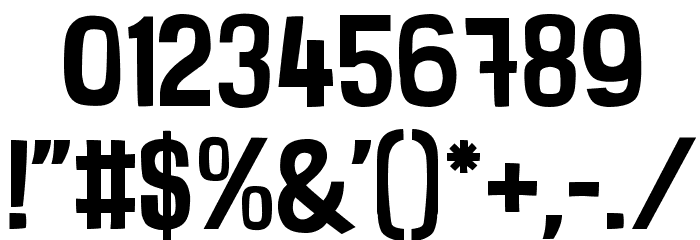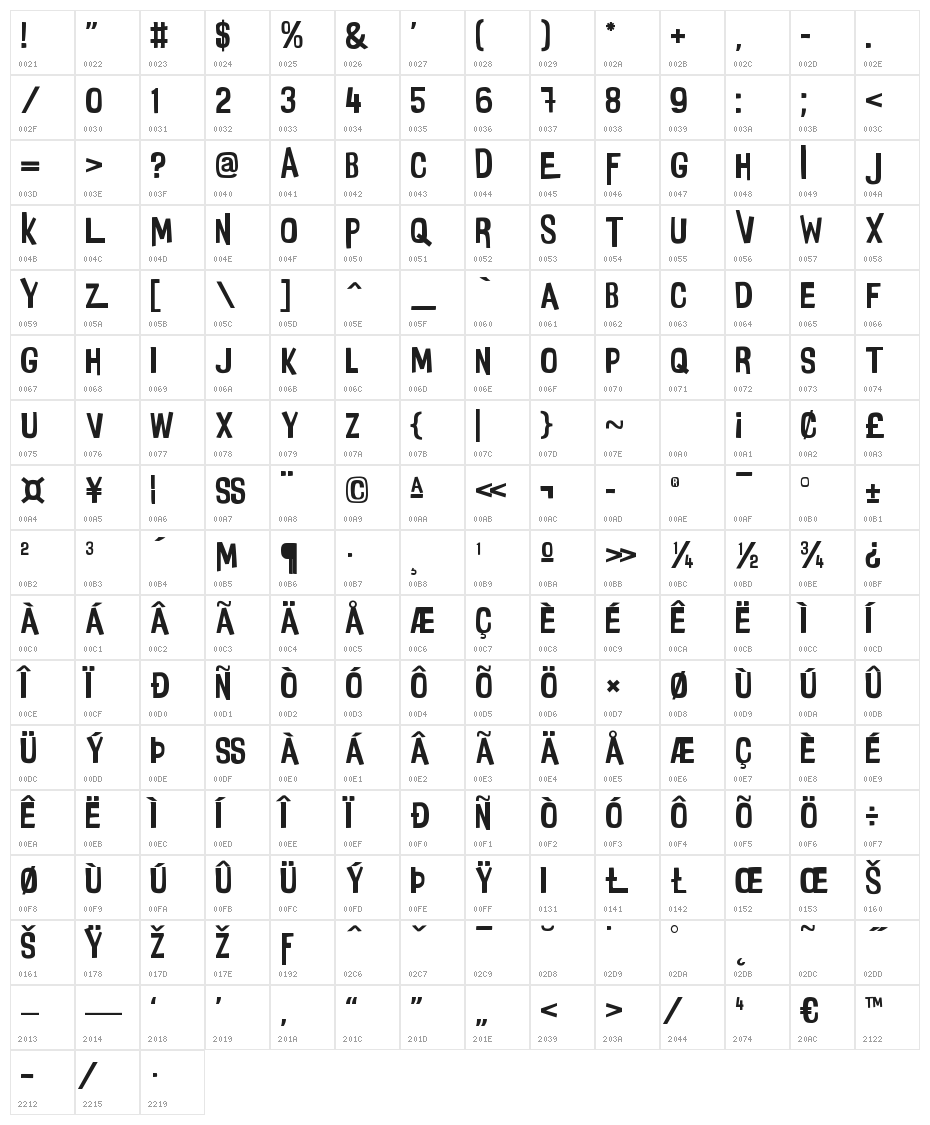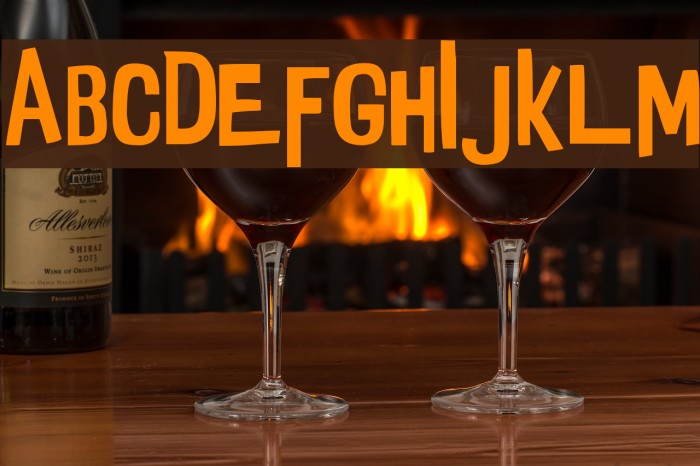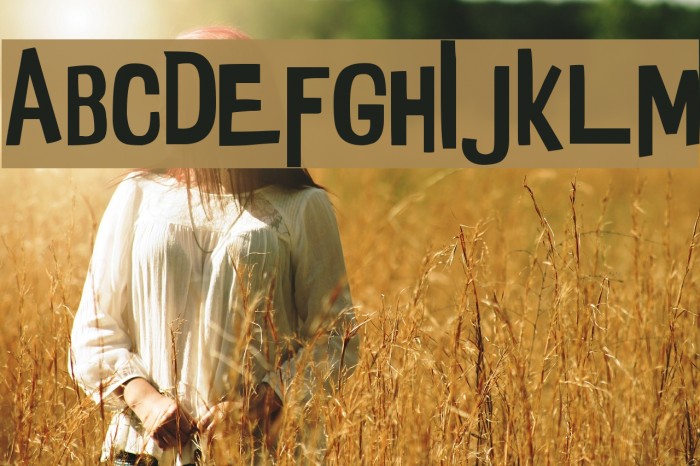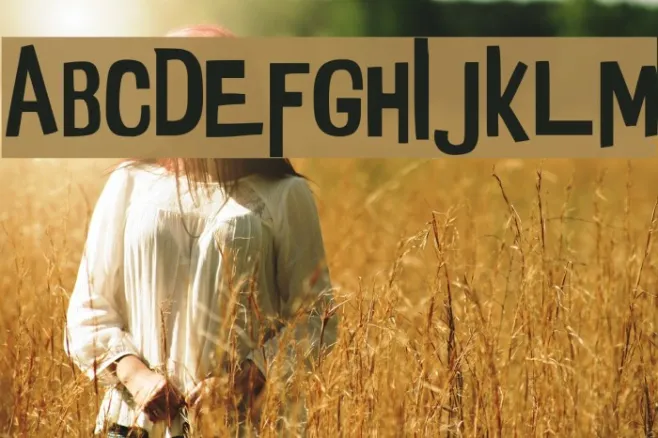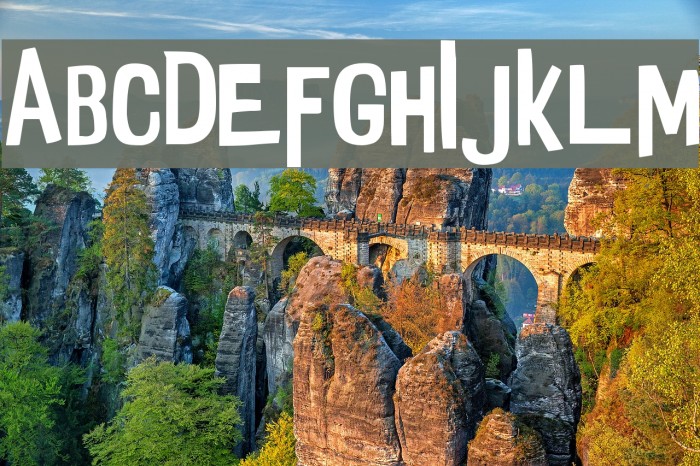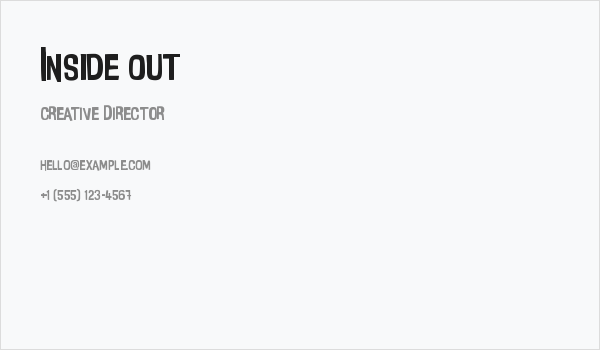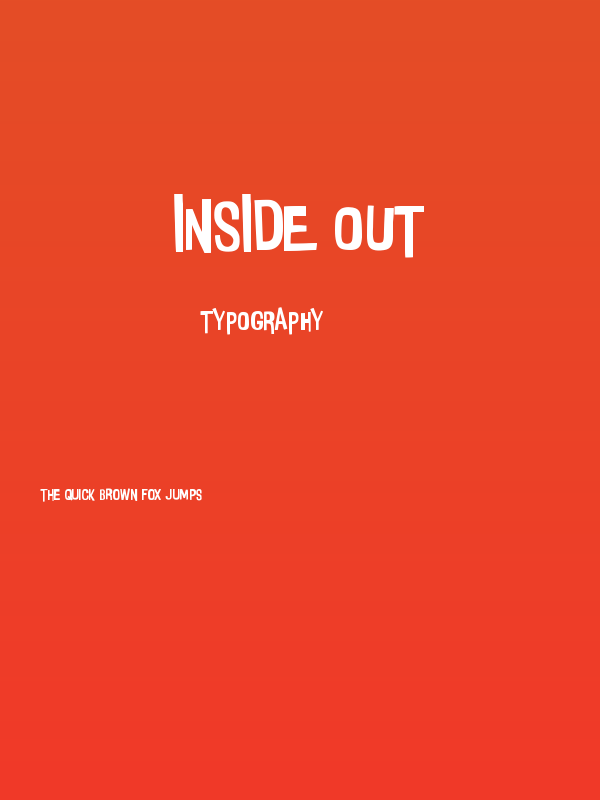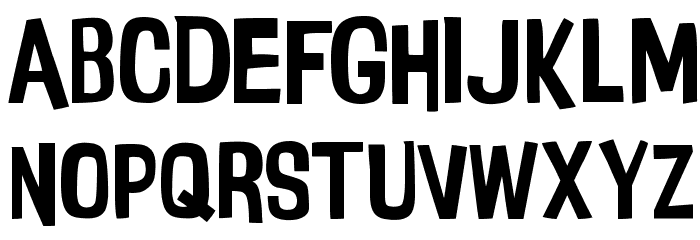
Inside Out Font
Inside Out Description
This font features a bold and dynamic style with a playful twist. The uppercase letters are slightly irregular, giving them a hand-drawn appearance that adds character and uniqueness. The lowercase letters maintain a consistent height, complementing the uppercase with a more uniform look. Numbers are bold and clear, ensuring readability. Special characters are creatively designed, maintaining the overall playful aesthetic. The font's thick strokes and high contrast make it stand out, ideal for attention-grabbing designs.
| Overall Style | Playful, Modern |
| Proposed Projects | Ideal for posters, branding, children's books, and playful graphic designs. |